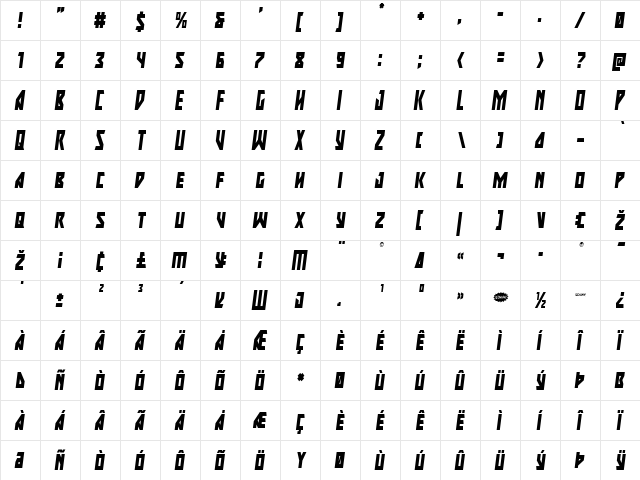
Major Force Condensed Italic Font Preview
Design Context for Major Force Condensed Italic Typeface
Major Force Condensed Italic has the bold swagger of sports branding: strong, assertive letterforms designed to dominate headlines and jerseys alike. The slanted form adds forward momentum and visual energy. The condensed width makes it efficient for tight spaces without sacrificing legibility.
A natural choice for gym brands, fantasy sports, jersey lettering, and action-driven headlines.
Font Pairing: Use alongside a condensed or geometric sans for supporting copy — keep the pairing bold, functional, and free of ornament.
Pro Tip: Use Major Force Condensed Italic in all-caps headlines where its athletic energy can fully express itself. Pair with a solid, simple sans for supporting text.